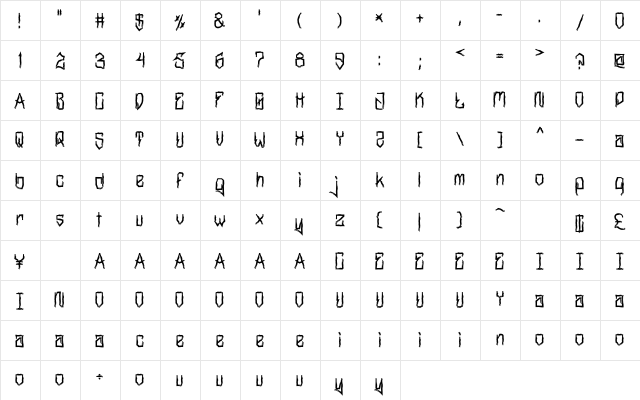
MarkerNo3HUN Rough II Bold
Design Context for MarkerNo3HUN Typeface
MarkerNo3HUN embraces imperfection — its rough, textured character adds raw authenticity to designs that want to feel lived-in and unconventional.
Suited to punk-influenced zines, underground music branding, streetwear, and raw, anti-corporate design.
Pro Tip: Pair MarkerNo3HUN with intentionally raw or lo-fi design elements. Fighting against it with overly polished surroundings will undermine its personality.